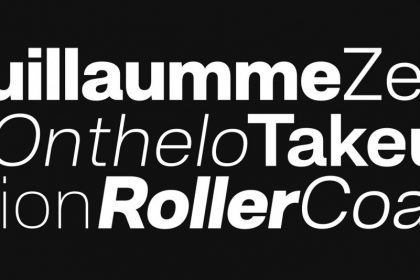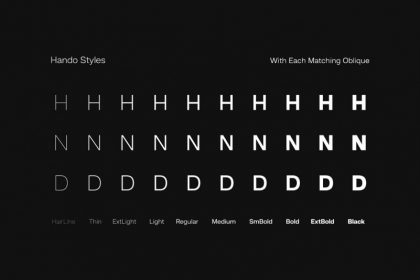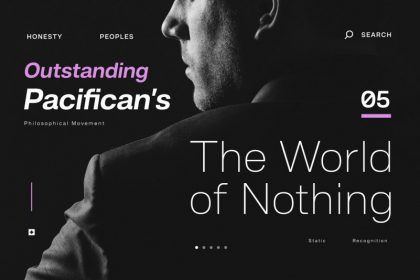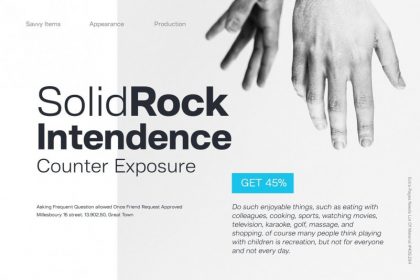
Hando Sans Font Family
This is a modern sans serif font family, This is modern sans serif typeface which designed based on geometric shapes. It is not just another geometric typeface, the uppercase letters were designed to have more squared form instead of circular and the lowercase retain the circular looks. Introducing Hando Font. Being one of the most popular font style; Neo Grotesk, Hando offers a wide range of usage possibilities. It’s low x-height and variety of light size options make it a good choice for reading, it’s tenuous white spaces in the counter letterforms make it legible enough to be recognized remotely. It’s curve tensions on the circular letterforms gave a futuristic impression. It’s sleek and simple strokes make it perfect for a broad range design purposes. Hando consist of 10 syles from Hairline to Black with each matching oblique. Contain more than 440 glyphs that support a broad latin languages. Also some Opentype features e.g. stylistic alternates, variation of figures, e.t.c